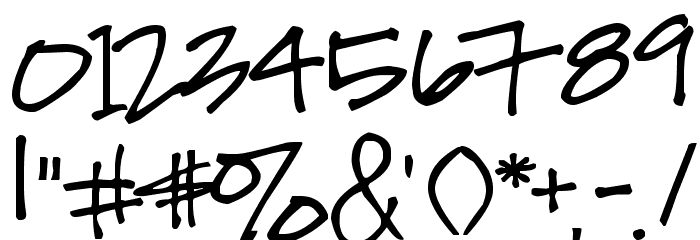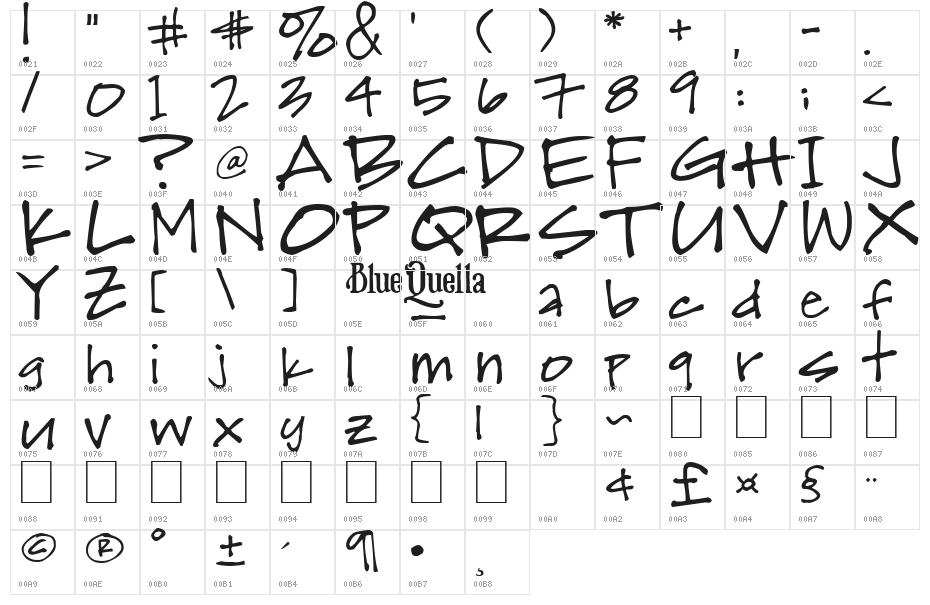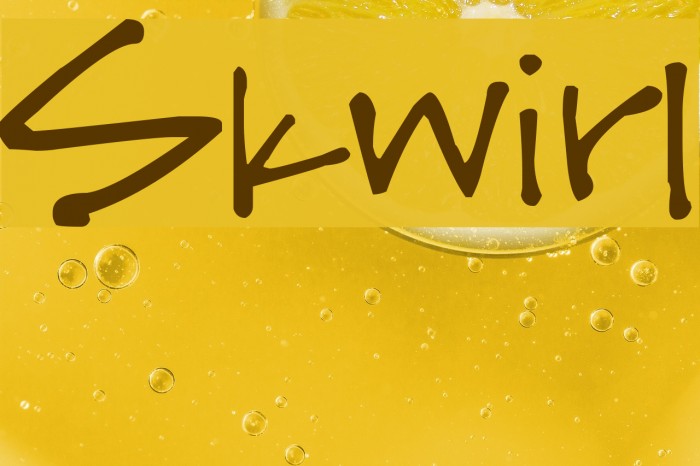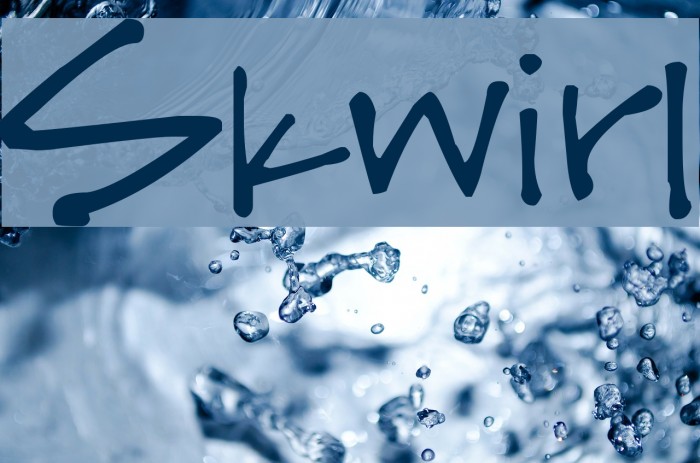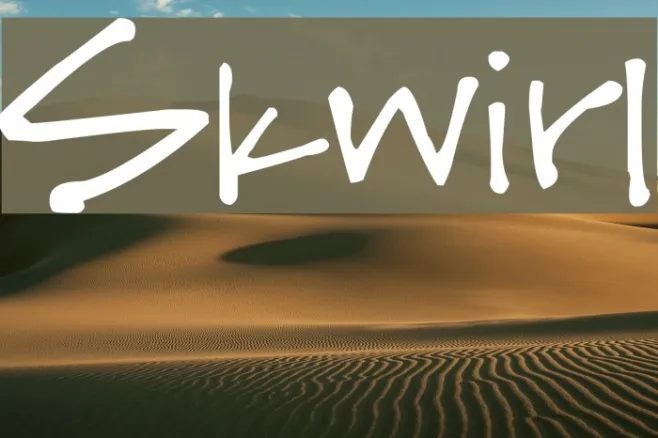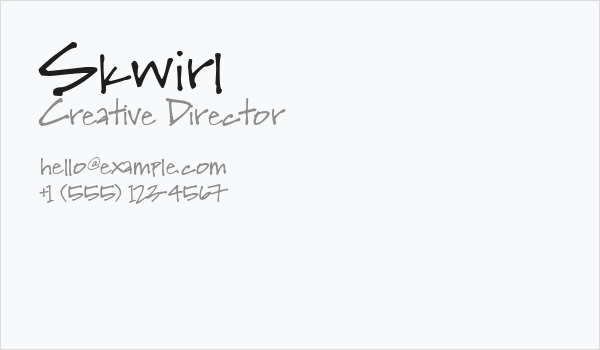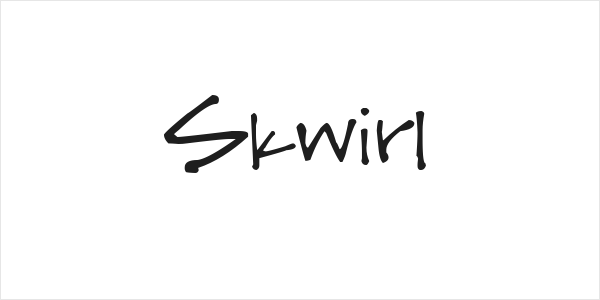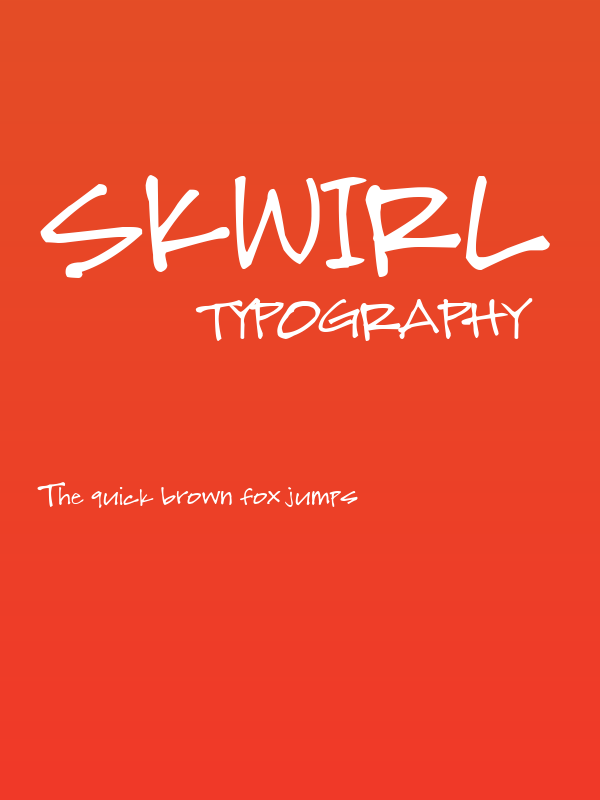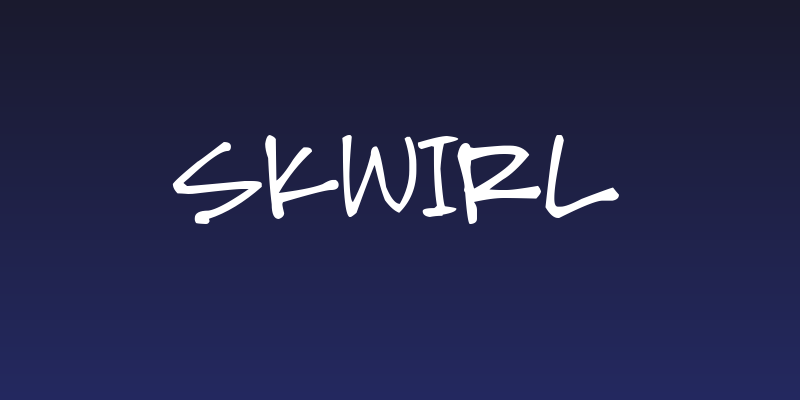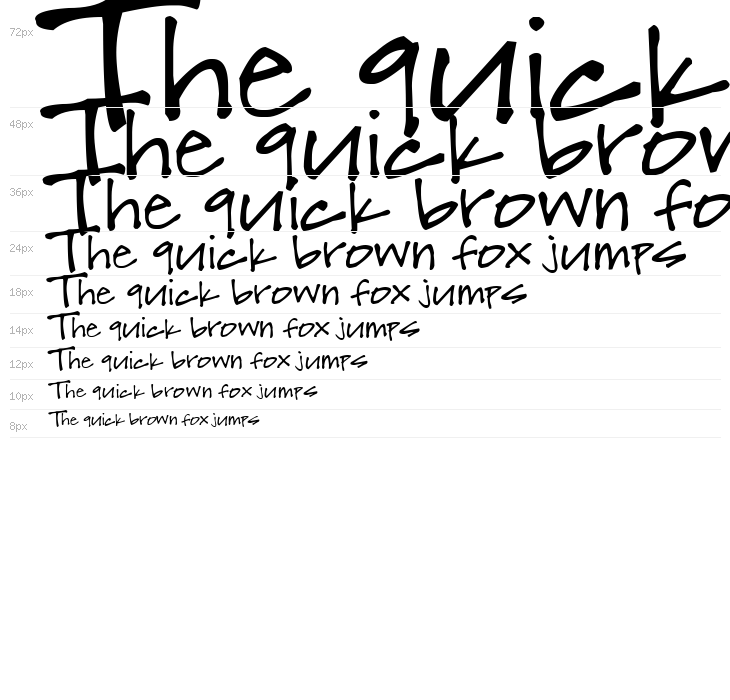
Skwirl Font
Skwirl Description
This font exudes a playful and casual handwritten style, characterized by its irregular strokes and dynamic flow. The letters are slightly slanted, giving it an informal and approachable appearance. The uppercase and lowercase letters maintain a consistent style, with some letters like 'k' and 'r' featuring unique, exaggerated loops. The numerals are bold and easily distinguishable, while the special characters retain the same lively energy. Overall, the font's whimsical nature makes it suitable for projects that require a personal touch or a sense of fun.
| Proposed Projects | Ideal for greeting cards, children's books, casual branding, and social media graphics. |